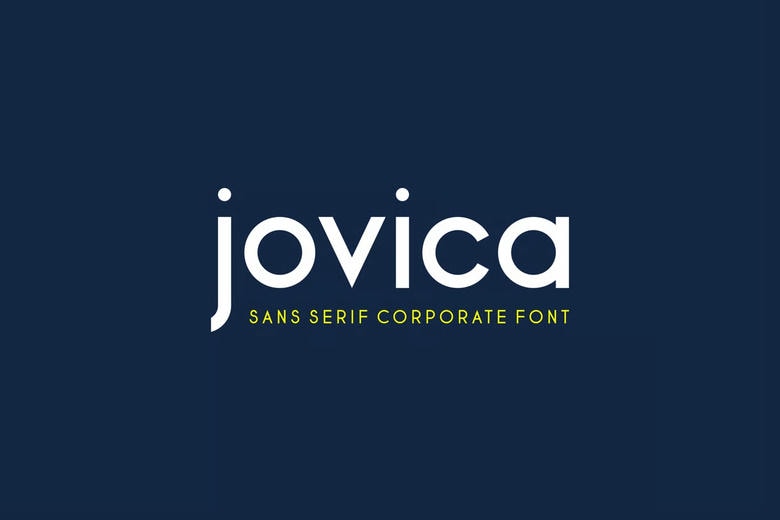
Jovica Font
Jovica is a modern bold and authentic sans serif font. This font is perfect for branding projects, Logo design, Clothing Branding, product packaging, magazine headers, or simply as a stylish text overlay to any background image.
Jovica Corporate Sans Serif Font